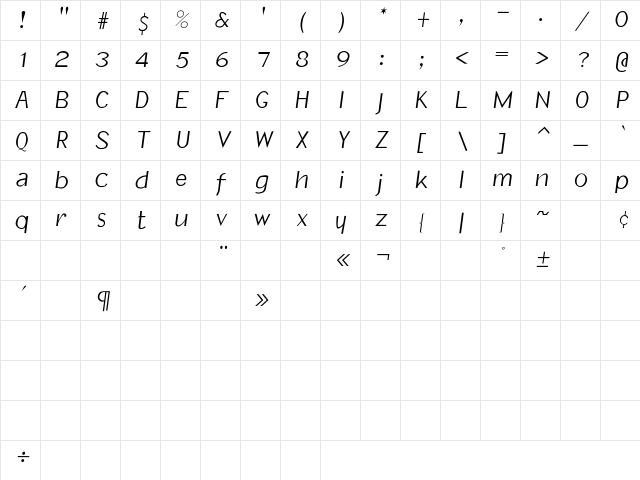
RSSlantInf Regular
RSSlantInf Family
Design Context for RSSlantInf
RSSlantInf is a composed and adaptable typeface that performs quietly and consistently across a wide range of design contexts.